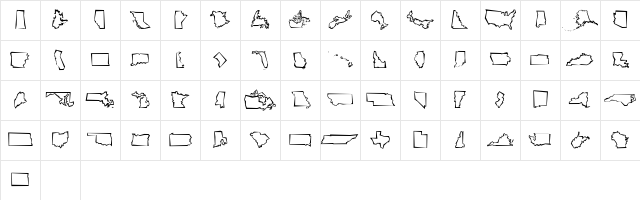
Complete MiniPics BorderlineCutout glyph index. Displaying only characters natively supported by MiniPics BorderlineCutout font.
MiniPics is a composed and adaptable typeface that performs quietly and consistently across a wide range of design contexts.